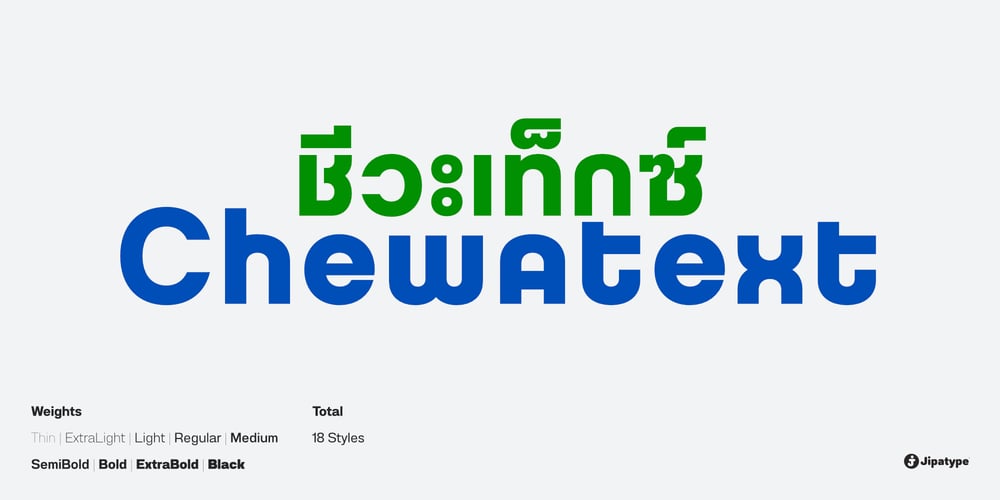
Chewatext Font Family was designed by Anupap Jaichumnan and published by Jipatype. Chewatext contains 18 styles and family package options. Chewatext is a sans serif typeface that minimalism, geometric, and technological look. This versatile font family offers a staggering 18 styles, support Latin-1 and Thai Unicode for character. Making it the ultimate choice for contemporary design projects. Whether it is various printed works, both online and offline.